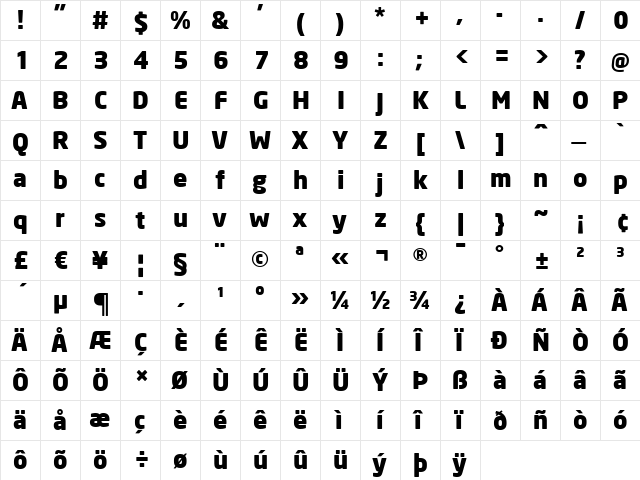
Neo Sans Black
Design Context for Neo Sans Typeface
Neo Sans offers clean, dependable letterforms without strong stylistic allegiance, making it a practical choice for designers who need flexibility.
Pro Tip: Pair Neo Sans with a font of contrasting weight or personality to build a more expressive typographic hierarchy.